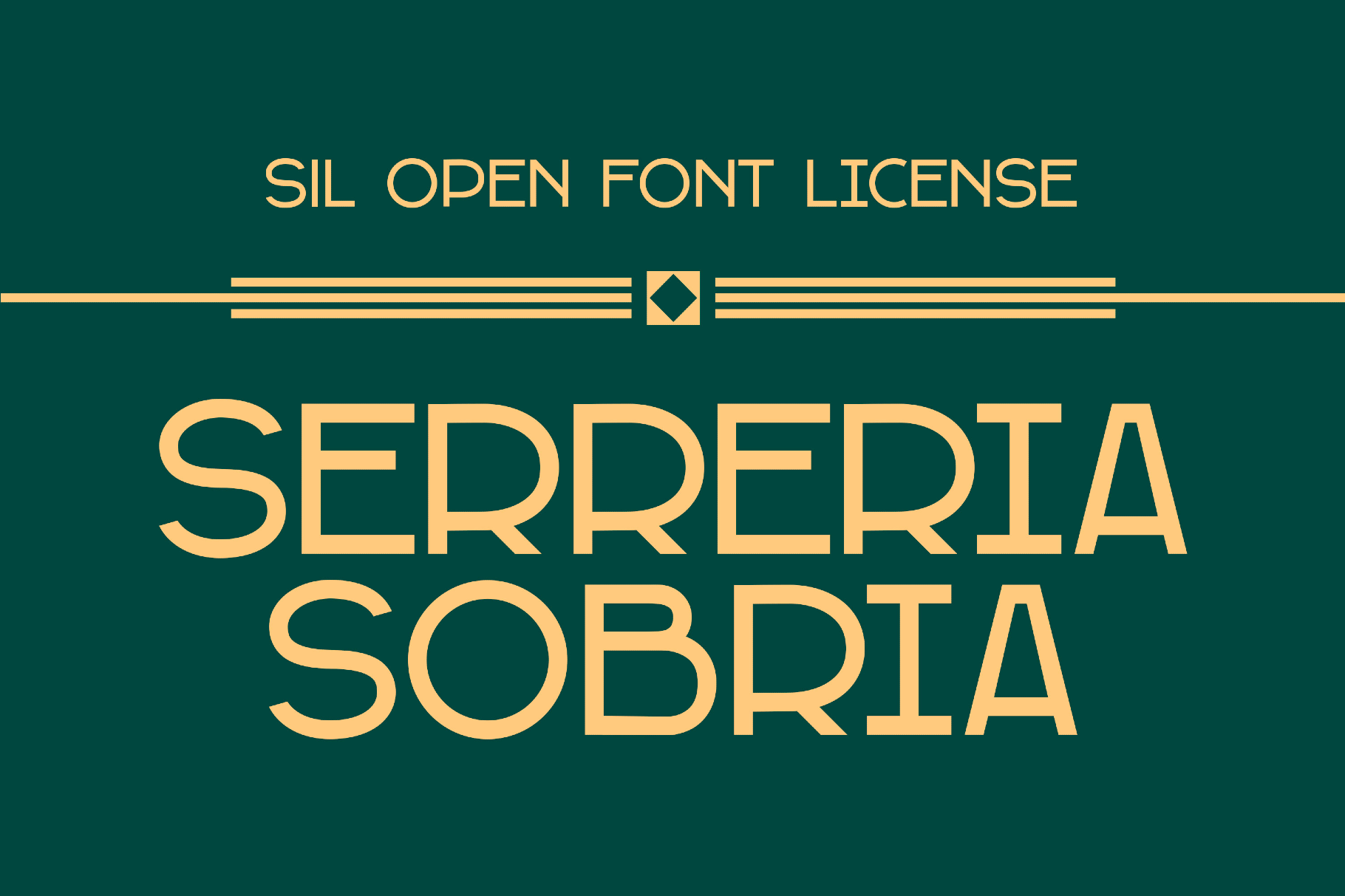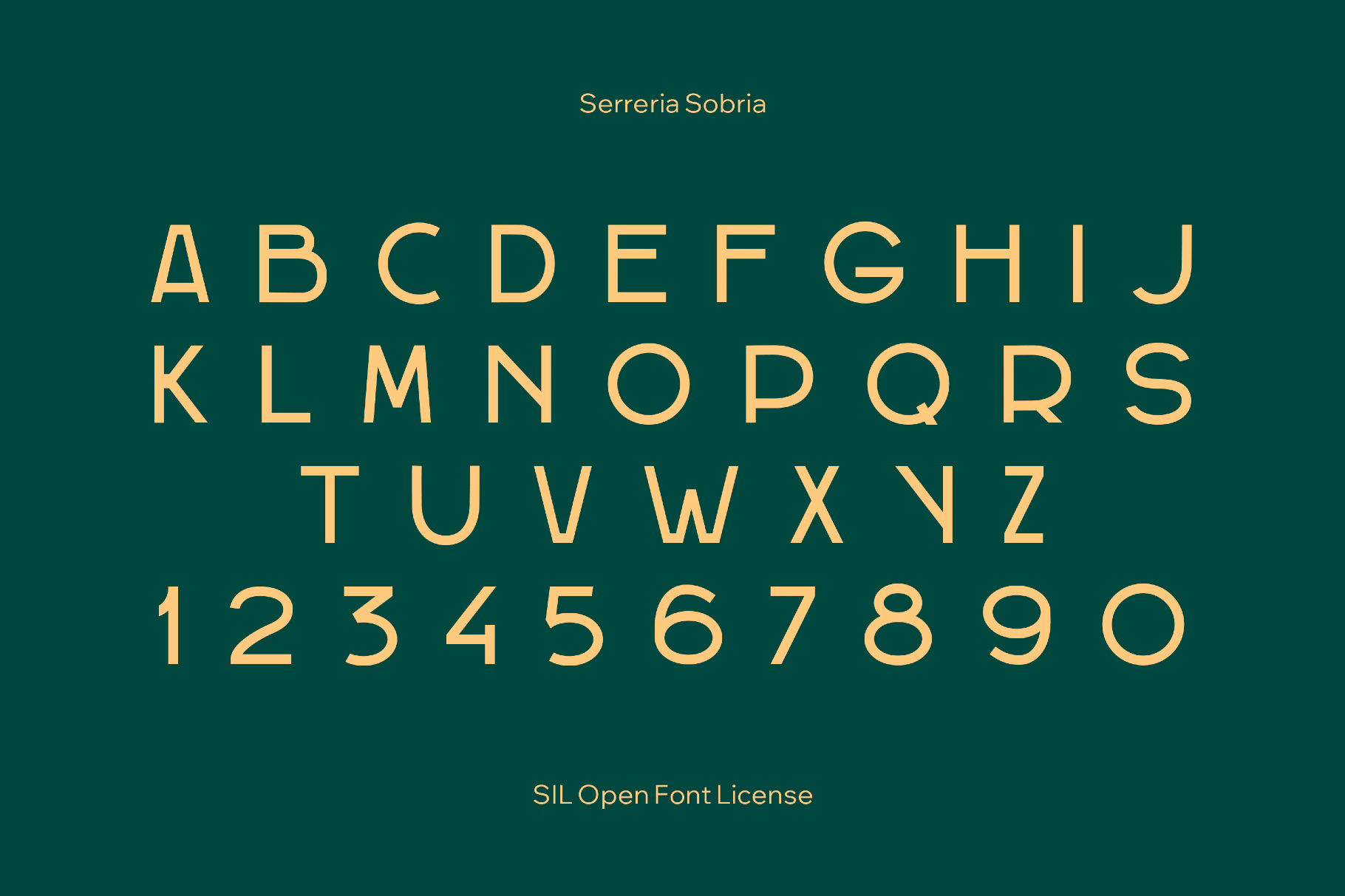
Serreria Sobria Font
Serreria Sobria delivers measured contrast that stacks squared industrial caps with the spirit of 19th-century wood type and job-print posters. You can play with this typeface as you like and use it for logos, packaging labels, craft and heritage branding, posters, editorial headlines, signage, café menus, event graphics, and social media banners.
- Only uppercase letters A–Z.
- Multilingual support across an extended Latin set.